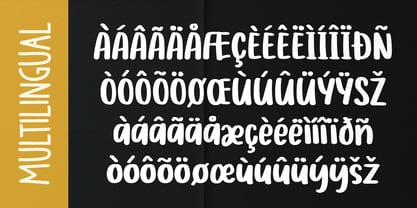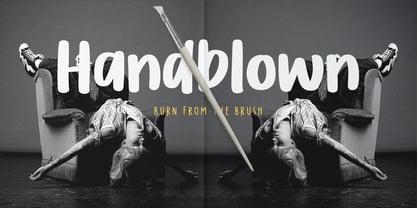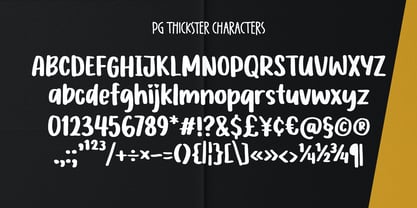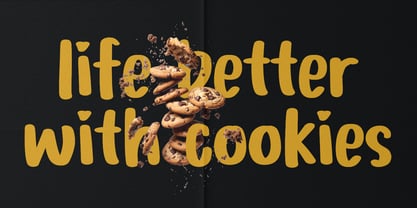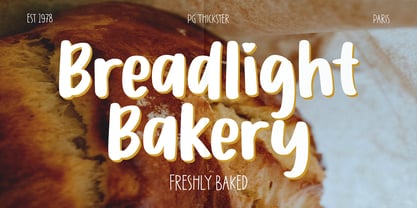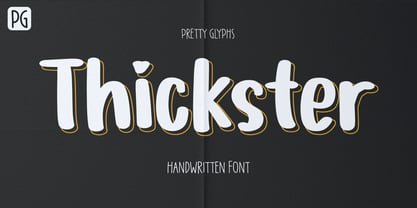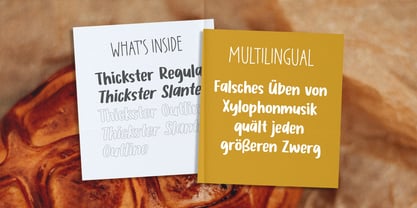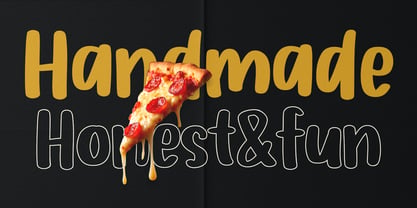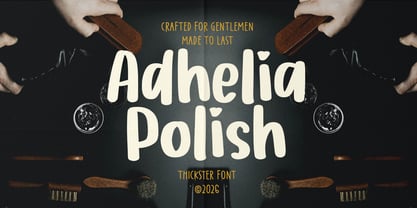
PG Thickster
by Pretty Glyphs
The PG Thickster Font Family was designed by Ulfa Tiara Putri and published by Pretty Glyphs. PG Thickster contains 4 styles and family package options. More about this family
PG Thickster is a bold handwritten font with a fun, confident, and expressive style. Featuring thick natural strokes and a smooth flow, this font is perfect for logos, branding, packaging, social media, posters, quotes, and more. Comes in four versatile styles — Regular, Slanted, Outline, and Outline Slanted — allowing you to create playful, eye-catching typography with ease.
Designers: Ulfa Tiara Putri
Foundry: Pretty Glyphs